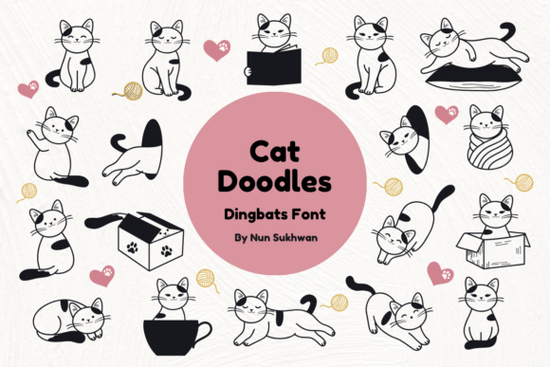
When you need to add character to a design without custom illustration, Cat Doodles Font provides a streamlined solution for creatives seeking a whimsical touch. It replaces the need to import scattered images by acting as a single file filled with sketched icons that align perfectly with your text. This approach saves time for graphic designers and crafters who want to maintain a consistent aesthetic across multiple files. Instead of wrestling with layers and manual alignment, you simply type a symbol to get a finished element.
Why choose a sketch style dingbats set?
Standard clipart often appears too polished or corporate for handmade goods. A dingbats font with a sketch theme solves this by offering organic shapes that mimic ink strokes or pencil drawings. This style works exceptionally well when paired with script fonts for labels, cards, or greeting messages. Because the graphics function as characters within the font file, they stay aligned with your text baseline automatically, saving significant editing time in software like Photoshop or Illustrator. Unlike separate PNG images, adjusting the size does not result in pixelation, ensuring crisp edges on large prints.
This approach is particularly useful for seasonal marketing materials. For instance, during holiday seasons or spring events, you might swap out icons quickly by selecting different characters within the same file. The consistency of the line weight keeps your designs looking unified, which builds trust with your audience. If you are working on a tight budget, utilizing a single versatile pack reduces the need to hunt down multiple different assets from various authors.
How can small business owners benefit from this style?
Sellers on marketplaces like Etsy or local craft fairs often need unique assets that define their brand identity. Using this collection allows you to create matching branding elements quickly. You might place a few icons above a shop logo to signal what you sell, such as pet supplies or cozy home goods. It also serves as decoration for wedding invitations where a relaxed, bohemian tone fits the event style. By keeping the visual language consistent, customers recognize your products immediately.
Consider integrating these motifs onto physical products. They scale well when applied to tote bags, mugs, or t-shirts using heat transfer methods. The sketch aesthetic tends to hide minor print imperfections better than solid block graphics, which is beneficial for screen printing or vinyl cutting. Small business owners can also use these elements for email signatures or social media post templates, maintaining a cohesive look across digital and physical channels.
You do not need advanced illustration skills to manipulate these figures. Basic text tools allow you to change spacing, kerning, and rotation instantly. When working with SVG conversion tools, remember that some dingbats may need grouping depending on your machine settings. Always perform a test cut on leftover material to confirm dimensions and alignment before committing to expensive substrates like fabric or wood.